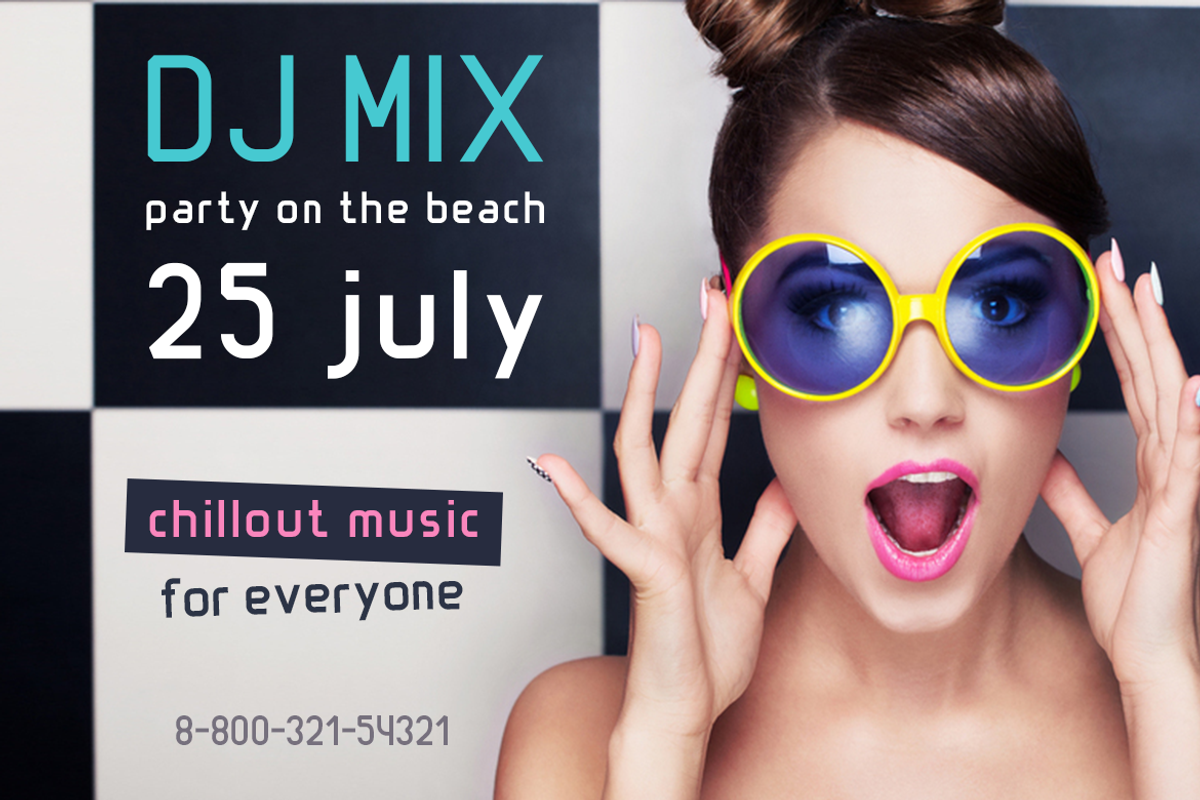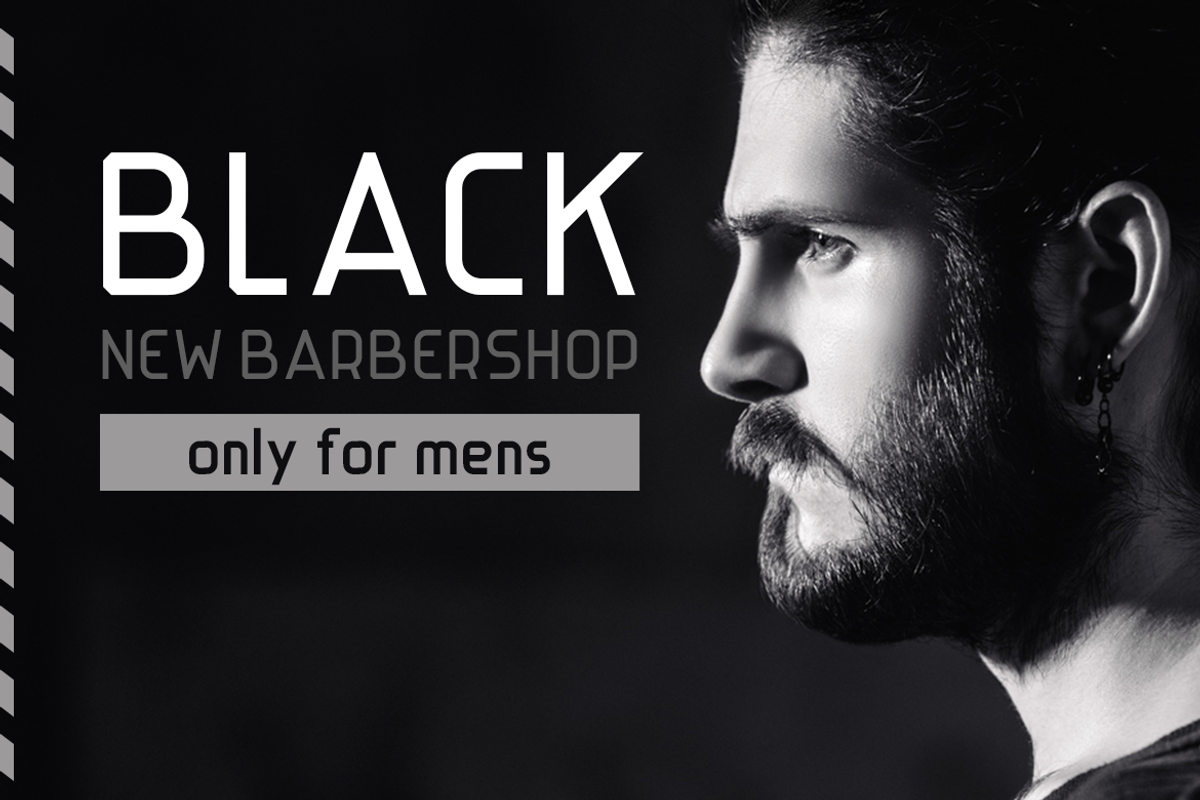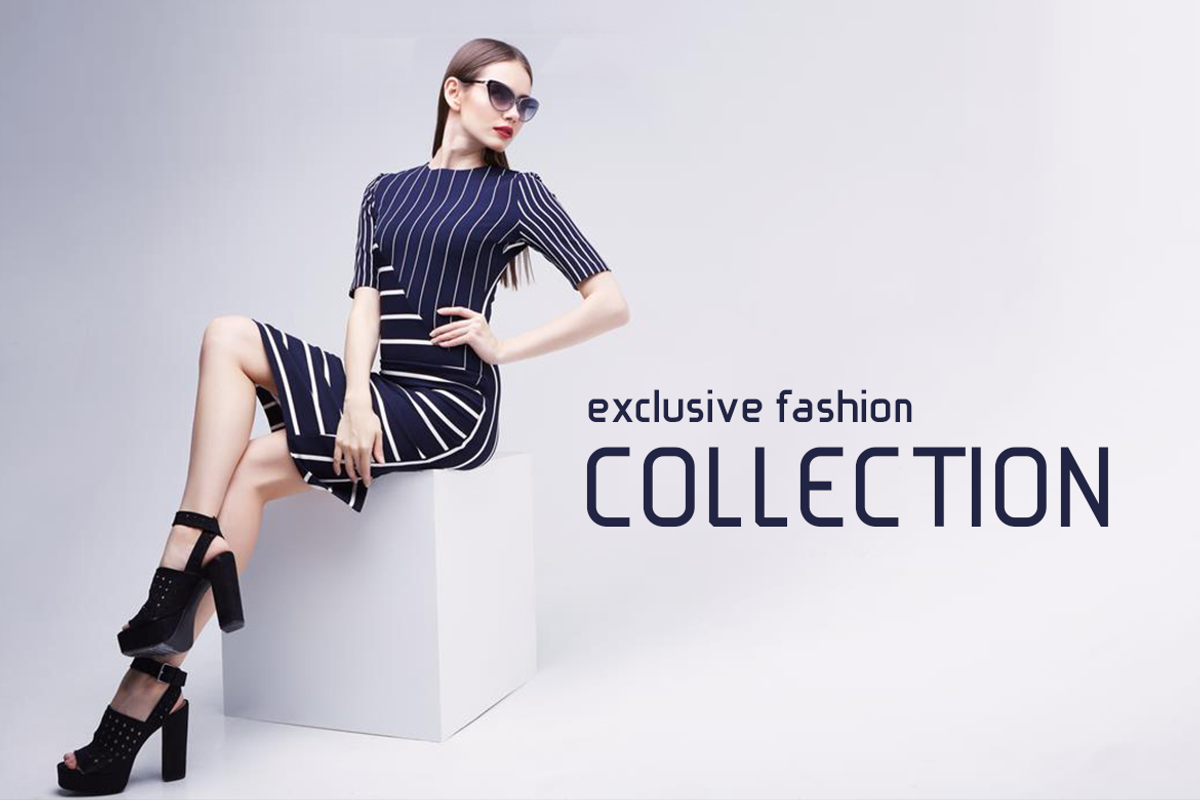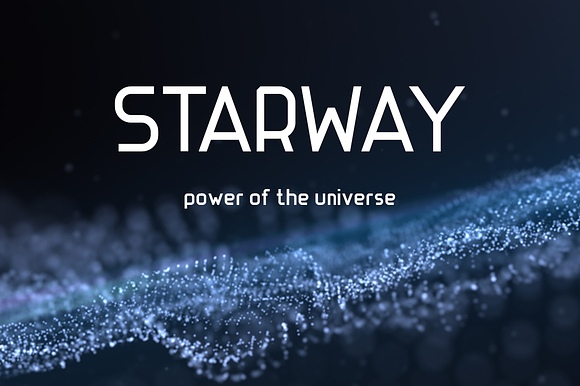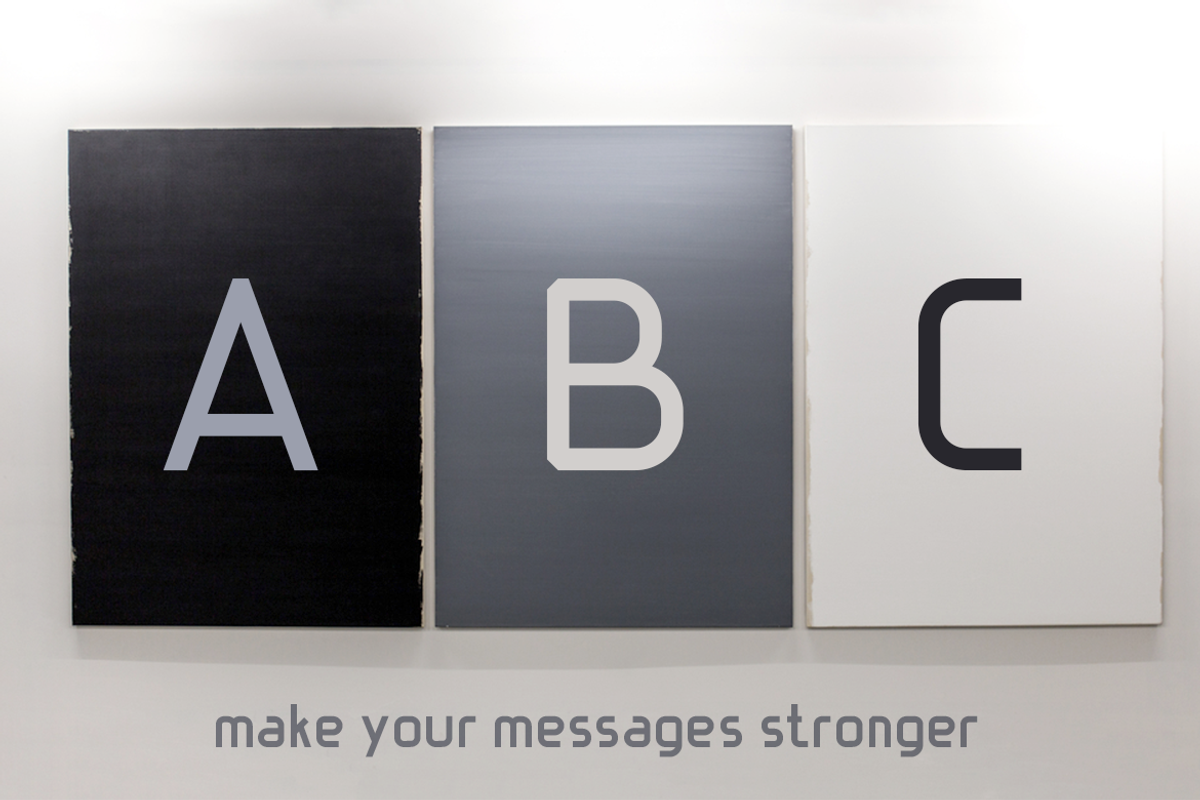
STARWAY — strict and stylish font
Starway is a sans serif strict and stylish line font. It's a sharp-angled font. It has numbers, punctuation and special character set. The universal font works great to make titles, posters, banners and and other printed materials.
numbers & punctuation
special character set